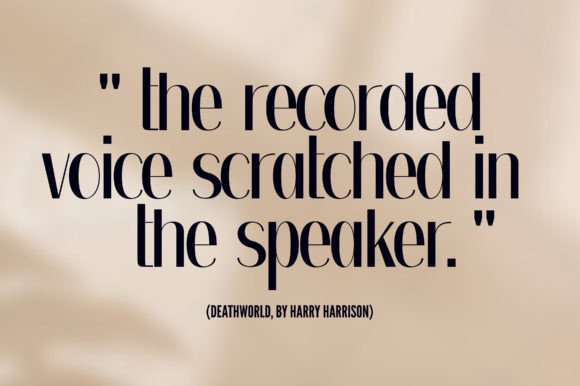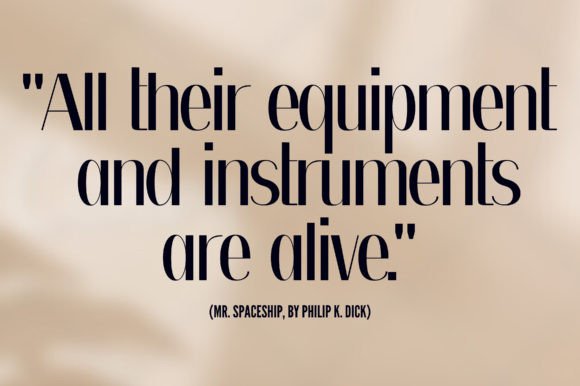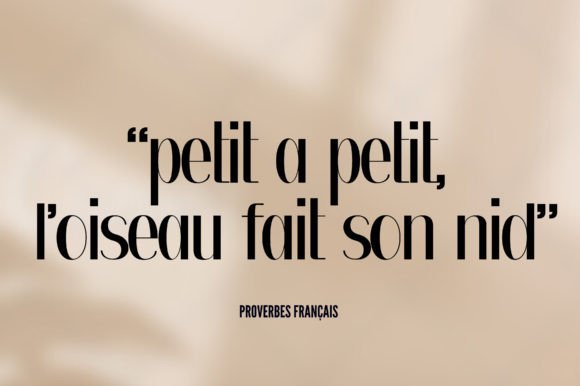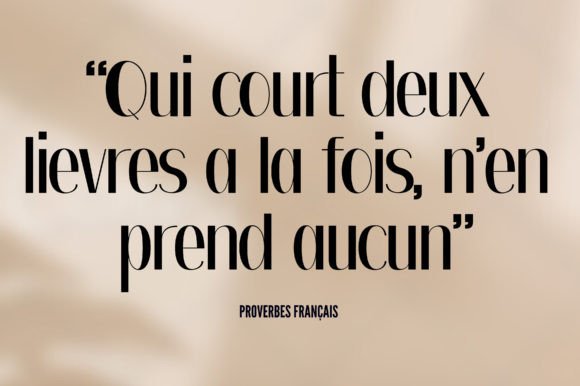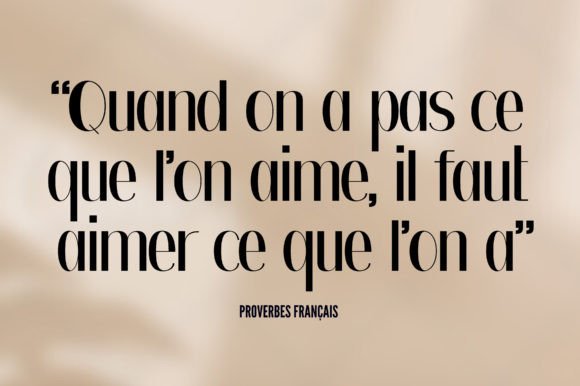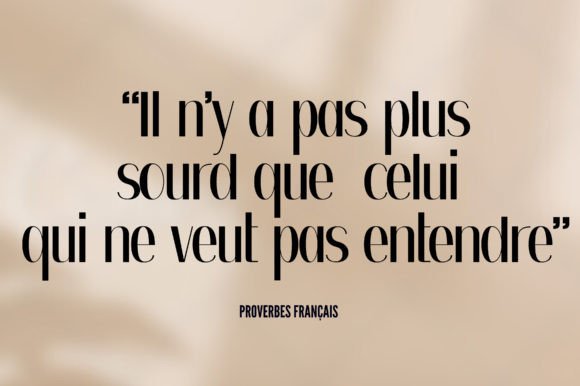
Introducing Cogito: The Ultimate Sans-Serif Font for Elegant Designs
In the world of typography, a font can make all the difference in creating a lasting impression. If you’re a designer, craftsperson, or simply someone who appreciates the art of beautiful design, you’re in luck. We’re excited to introduce Cogito, a sleek and stylish sans-serif font that exudes class and elegance. With its versatility, diversity, and high legibility, Cogito is the perfect choice for creating stunning designs that stand out from the crowd.
The Art of Elegance: Cogito’s Design Philosophy
Cogito’s design is rooted in the principles of simplicity, sophistication, and versatility. Its clean lines, subtle curves, and precise letterforms come together to create a font that is both modern and timeless. Whether you’re looking to create a high-end brand identity, a minimalist website design, or simply a chic and sophisticated print piece, Cogito has got you covered.
Unleash Your Creativity with Cogito’s Versatile Character Set
One of the standout features of Cogito is its extensive character set. With a wide range of letters, numbers, and symbols, you can create complex designs that showcase your creativity. From elegant headings to body copy, Cogito’s character set is designed to adapt to your design needs. Whether you’re working on a branding project, a website, or a print piece, Cogito’s versatility ensures that your design will look stunning and cohesive.
Readability Meets Style: Cogito’s High Legibility
While style is essential, readability is equally important. Cogito is designed to be highly legible, making it a great choice for long-form text, body copy, and even books. Its clear and distinct letterforms ensure that your readers can read your text with ease, even at small font sizes. This makes Cogito a great choice for web and mobile design, where legibility is of utmost importance.
Why Choose Cogito for Your Design Projects?
So, why should you choose Cogito for your design projects? Here are just a few reasons:
- Elegance and sophistication: Cogito’s sleek design and precise letterforms exude class and elegance, making it perfect for high-end designs.
- Versatility: With its extensive character set, Cogito can be used for a wide range of design projects, from branding to web design.
- High legibility: Cogito’s clear and distinct letterforms ensure that your text is easy to read, even at small font sizes.
Get Ready to Elevate Your Designs with Cogito
Design Possibilities with Cogito
The possibilities are endless with Cogito. Here are just a few ideas to get you started:
- Branding and logos: Use Cogito to create a high-end brand identity that exudes elegance and sophistication.
- Web design: Create a minimalist website design that showcases your content in a clean and stylish way.
- Print design: Use Cogito for print pieces such as brochures, business cards, and posters.
- Typography: Experiment with Cogito’s character set to create stunning typographic designs.